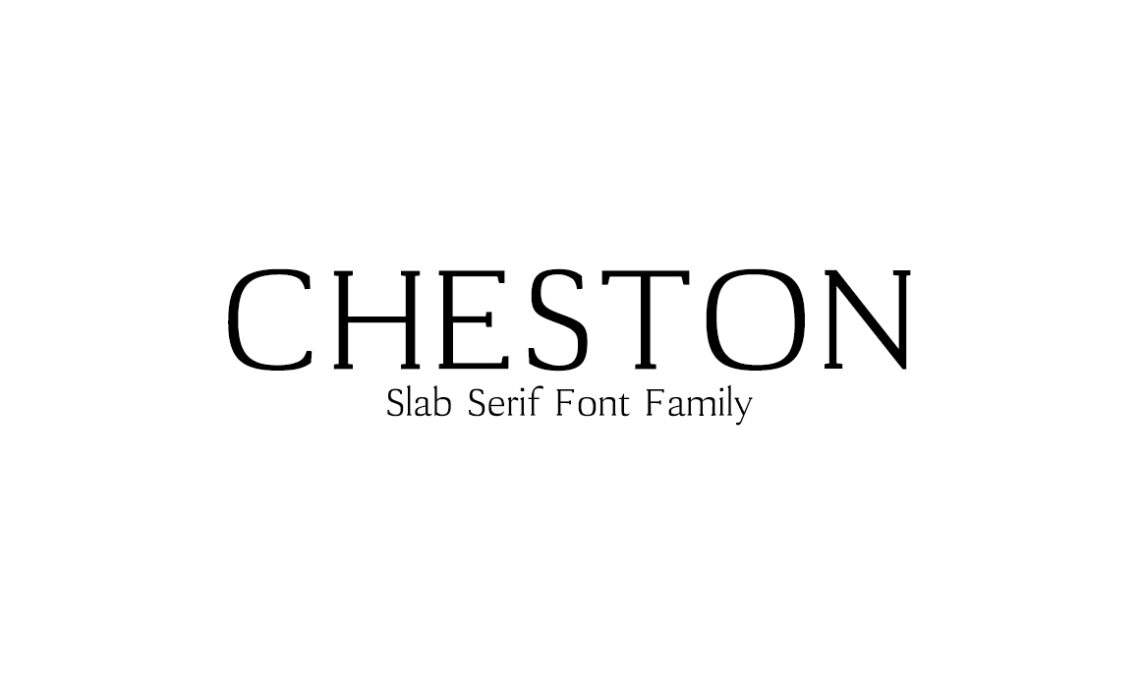
Step inside the world of Cheston Font, a slab serif masterpiece that will redefine your typographic horizons. With its five distinct weights and styles, Cheston offers an unrivaled versatility, allowing you to craft designs that speak to your heart's content.
Cheston, the brainchild of Creative Tacos, is more than just a font; it's an expression of creativity and passion. Its clean lines and elegant curves exude a timeless charm, while its contemporary twist adds a touch of modernity.
Immerse yourself in the world of Cheston and unlock a realm of possibilities. Whether you're a seasoned designer or just starting your typographic journey, Cheston will guide you to create captivating designs that leave a lasting impression.
Headlines will sing with authority, body text will flow with grace, and logos will radiate with personality. Cheston's versatility knows no bounds, effortlessly adapting to any project that comes its way.
But Cheston is more than just a versatile font; it's an experience. Its carefully crafted characters dance across the screen, inviting you to explore new depths of creativity. Each weight and style carries its own unique personality, allowing you to convey a wide range of emotions and messages.
Join the Cheston revolution and elevate your designs to new heights. From elegant invitations to striking posters, Cheston will transform your words into works of art.